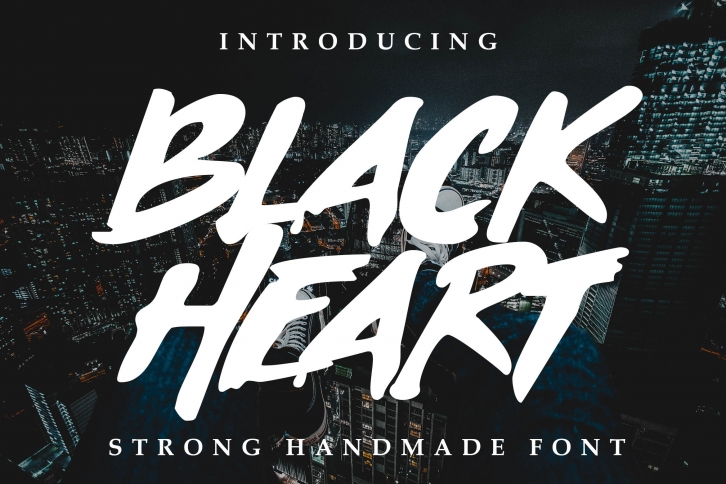
Black Heart Font Download
Black Heart is a beautiful font that was designed by lettersiro co. It's a great choice for designers and creatives who need such a font. It was released on January 12, 2019 and the file size is 1.29 MB. Black Heart may give a more youthful, expressive and casual look to your project. It is a very beautiful, refined, elegant, and high-quality font.